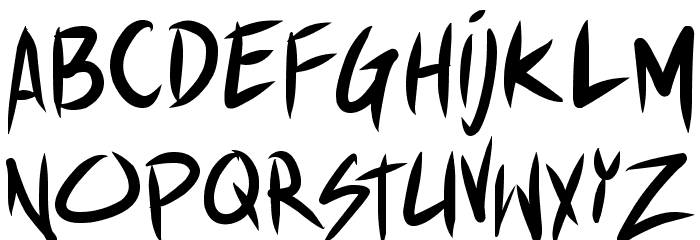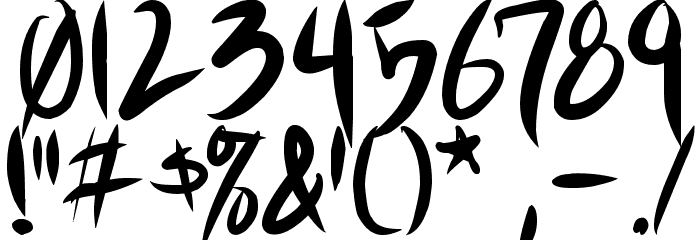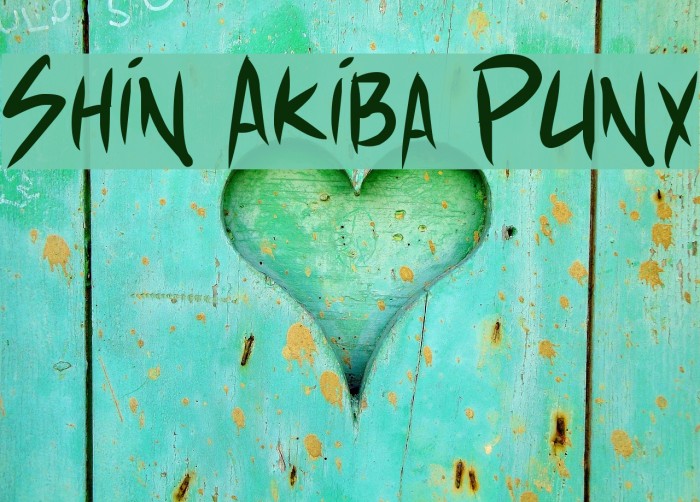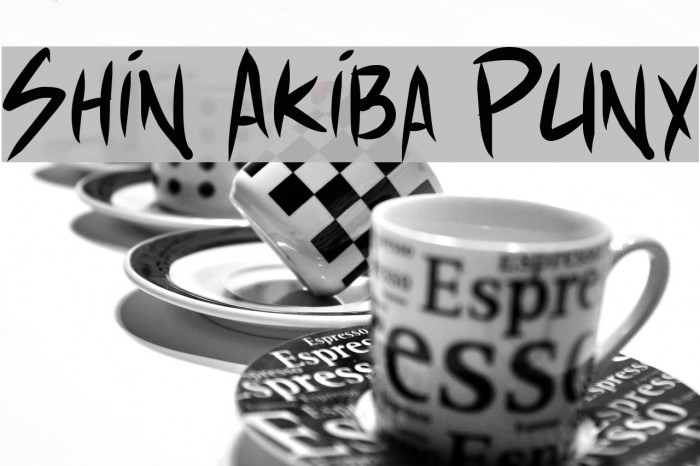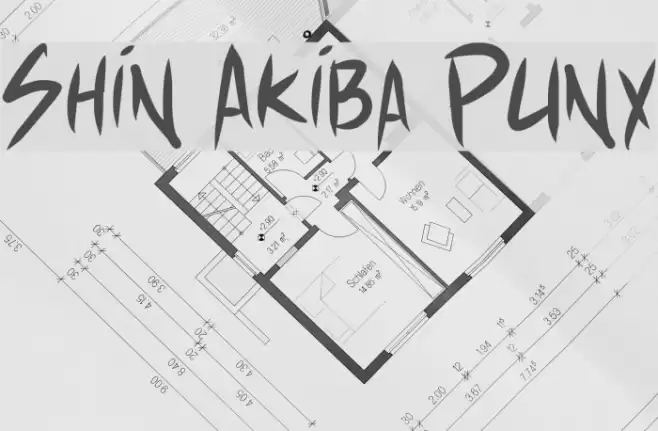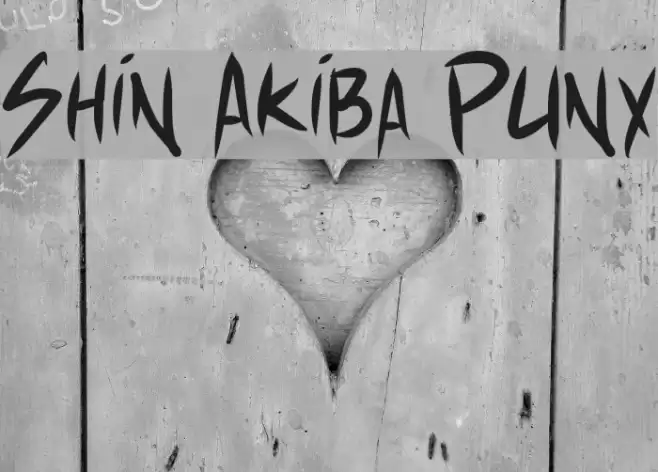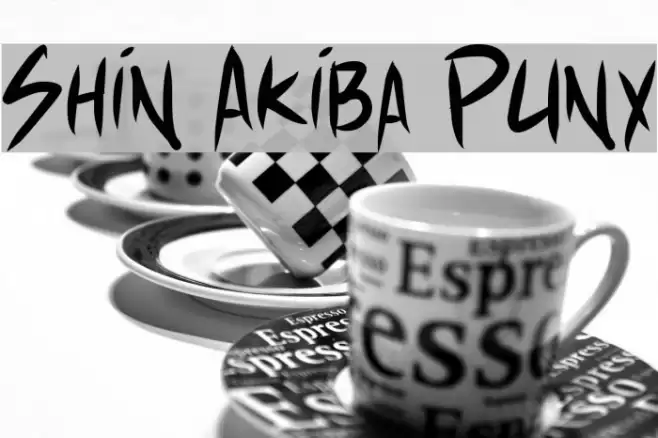
Shin Akiba Punx Font
This font exudes a bold, energetic style with a handwritten flair. The characters are dynamic and slightly irregular, giving a sense of movement and spontaneity. The strokes are thick and expressive, with sharp angles and a slightly slanted orientation that adds to its edgy and rebellious feel. The uppercase and lowercase letters maintain a consistent style, while the numerals and special characters integrate seamlessly, enhancing the font's versatility. This font is ideal for projects that require a strong, impactful visual presence.
A bold, energetic handwritten font with a rebellious edge.
- Proposed Projects: Perfect for music album covers, graffiti art, streetwear branding, and event posters.
- Overall Style: Modern, Decorative